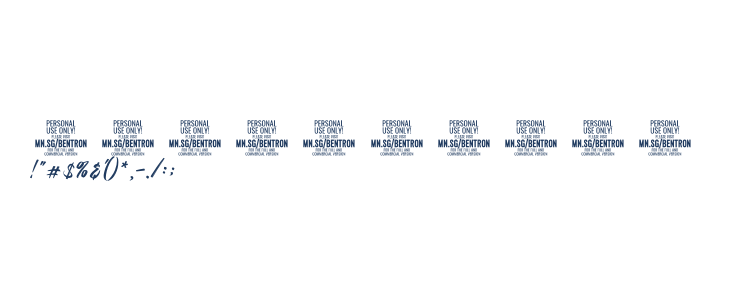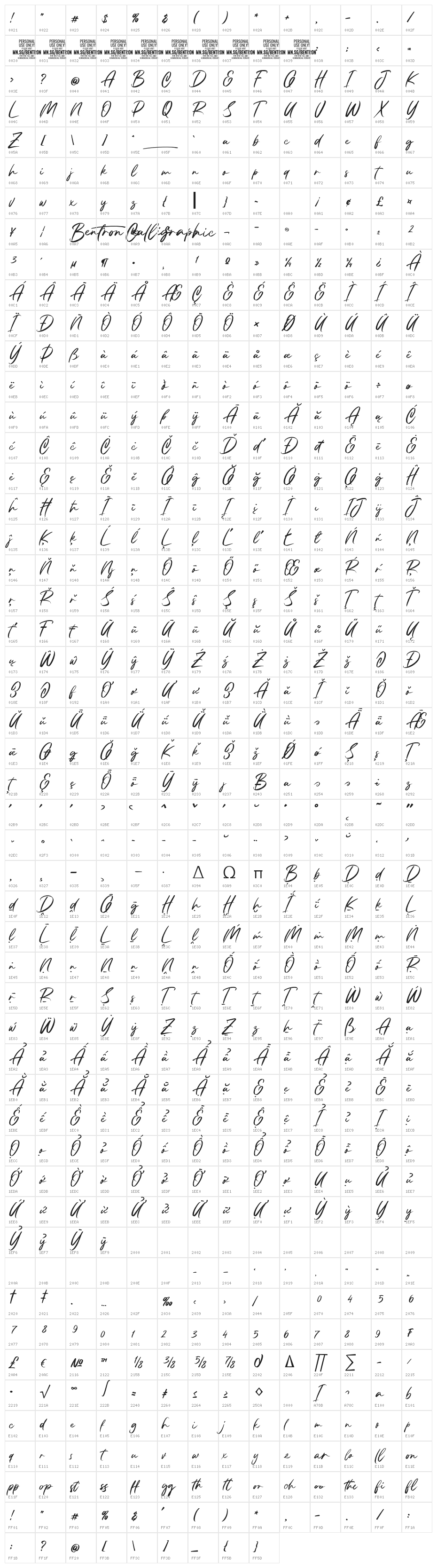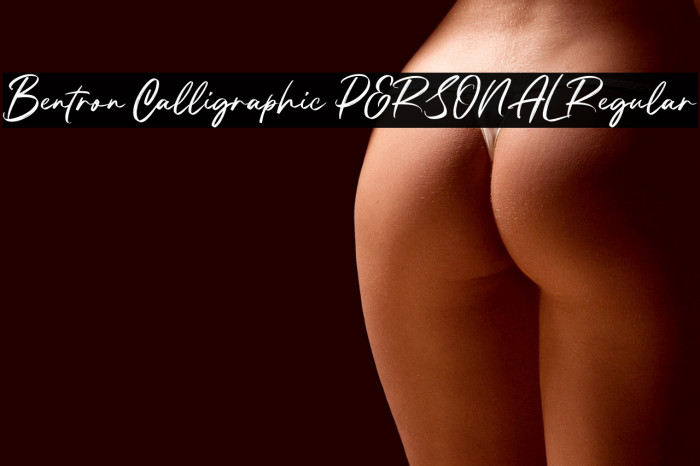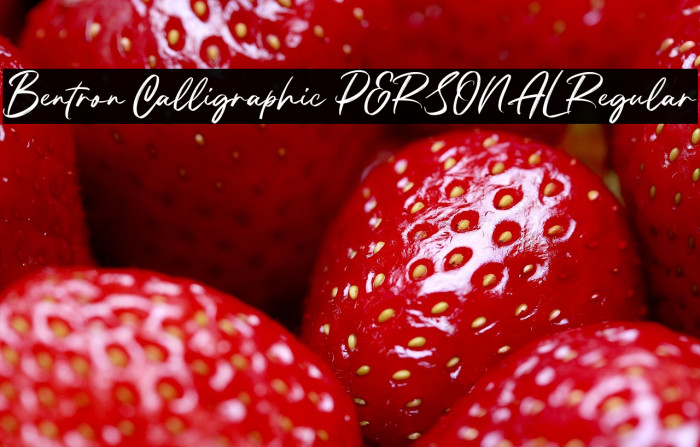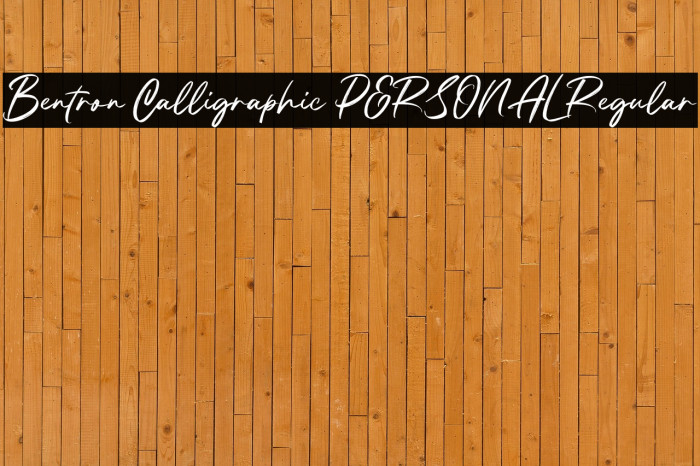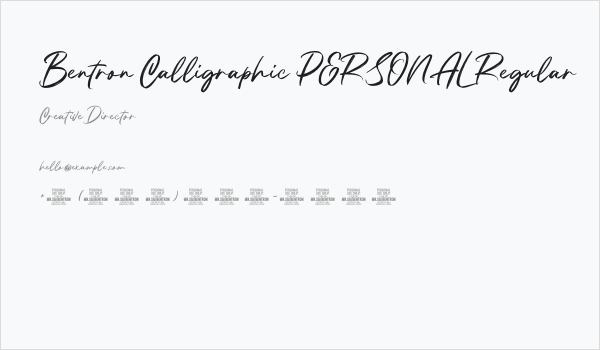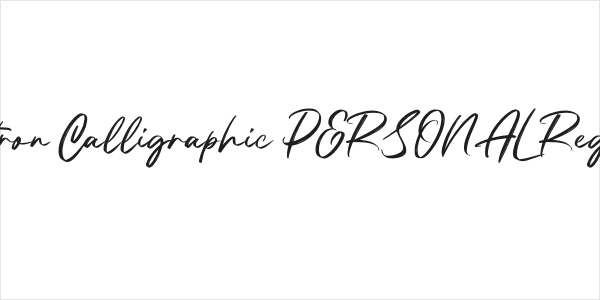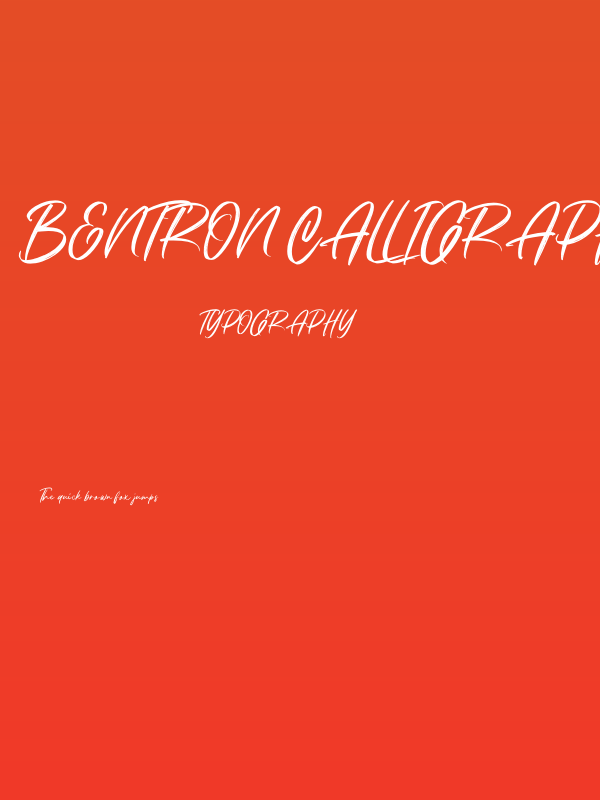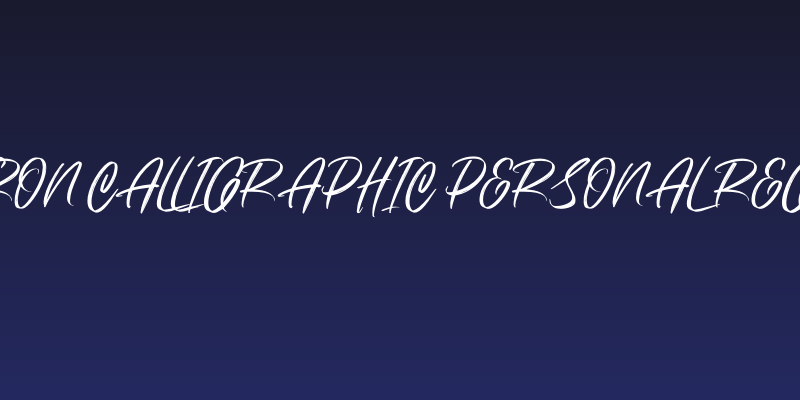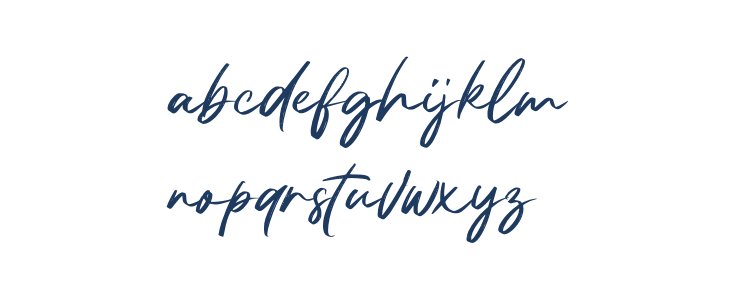
Bentron Calligraphic PERSONAL Regular Font
Bentron Calligraphic PERSONAL Regular Description
This font exudes a dynamic and expressive style, characterized by its fluid, calligraphic strokes. The letters are elegantly crafted with a sense of motion, making it ideal for projects that require a personal touch. The uppercase letters are bold and sweeping, while the lowercase letters maintain a consistent flow, enhancing readability. The numbers and special characters are designed with the same artistic flair, ensuring a cohesive look across all text elements. Its hand-drawn appearance adds a touch of sophistication and creativity, perfect for artistic and decorative applications.
| Proposed Projects | Ideal for wedding invitations, branding, greeting cards, and artistic posters. |